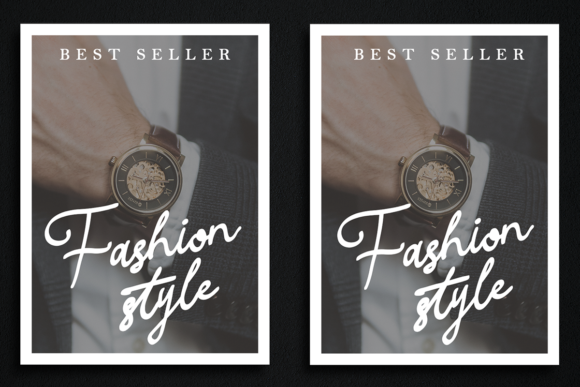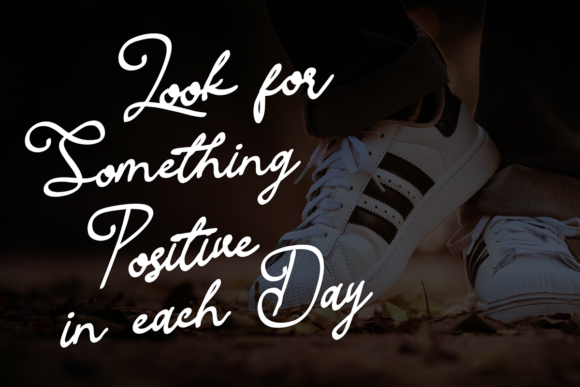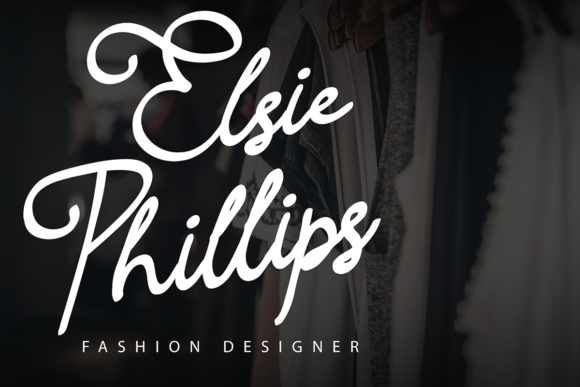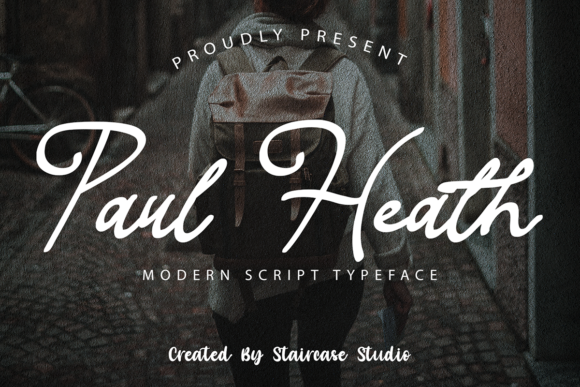
Introduction to Paul Heath Font
Paul Heath is a modern script font.
A collection of letters and numbers suitable for your projects, and also great for logotype, branding design, logo design, digital lettering arts, t-shirt/apparel, poster, magazine, signs, advertising design, and more .
Key Features of Paul Heath Font
Why Choose Paul Heath Font?
Paul Heath Font offers exceptional quality and versatility, making it a valuable addition to your design toolkit. Whether you’re creating for personal projects or commercial use, Paul Heath Font delivers professional results.